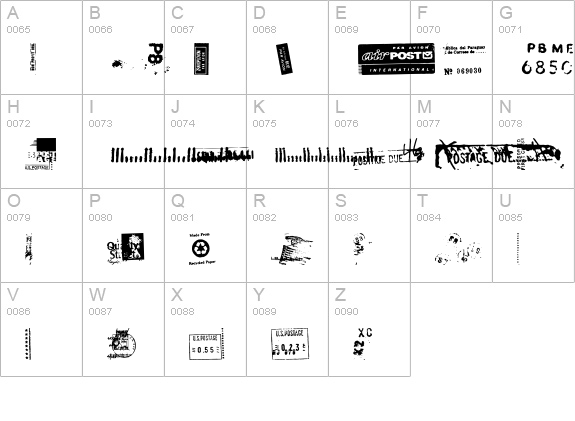
Dead Letter Office Seventeen is a stunning and unique font that exudes a sense of mystery and vintage charm. Its intricate and ornate design makes it perfect for adding a touch of elegance to your projects. With its elaborate details and old-world feel, this font is sure to capture the attention of your audience and leave a lasting impression. The best part? Dead Letter Office Seventeen is available for free download at FontsMarket.com! Whether you're working on a creative design project, crafting a vintage-inspired logo, or simply looking to add a touch of sophistication to your text, this font is a fantastic choice. Don't miss out on the opportunity to enhance your creations with this exquisite and freely available typeface. Download Dead Letter Office Seventeen today and let your creativity soar!